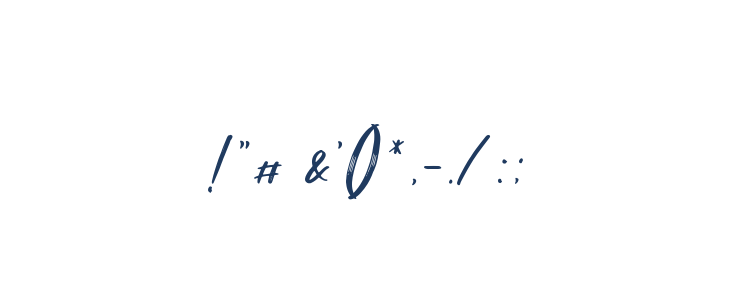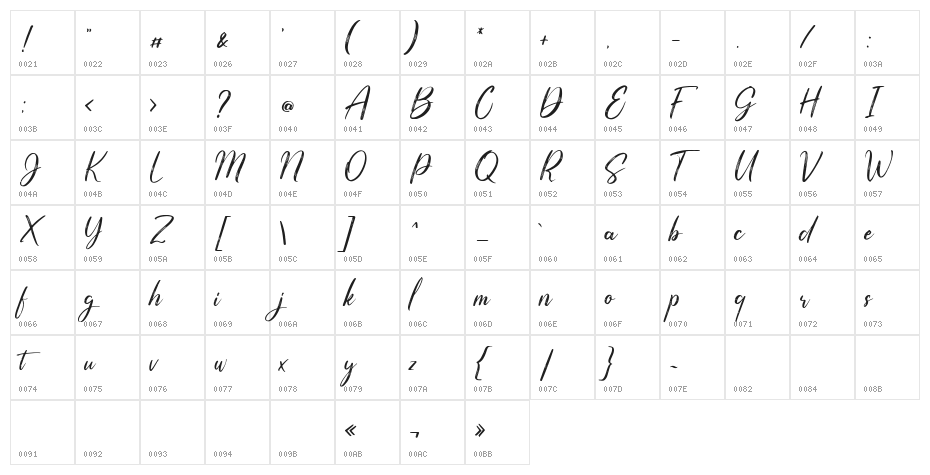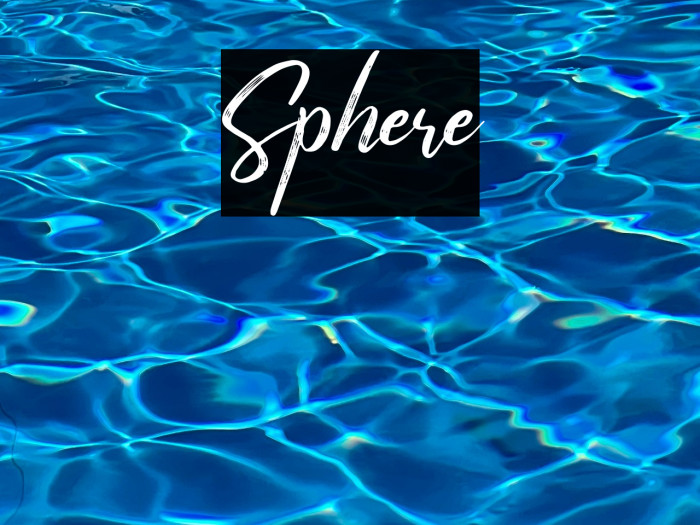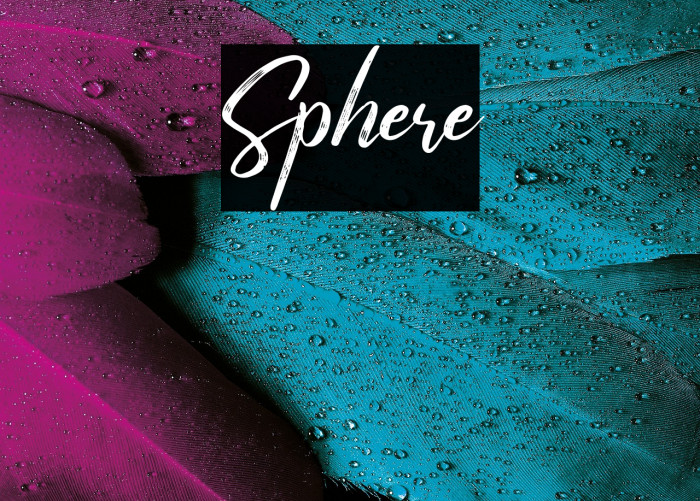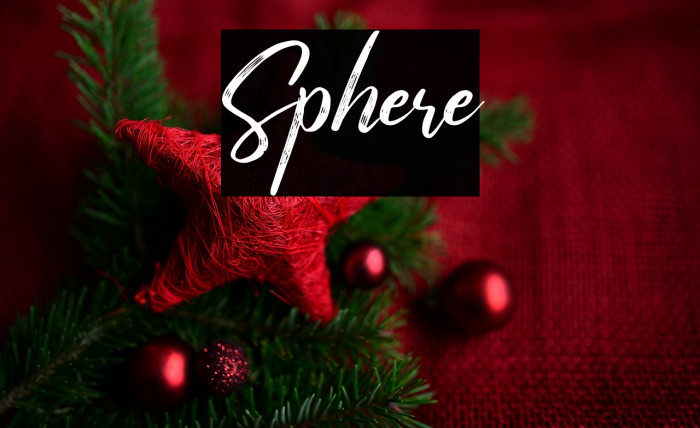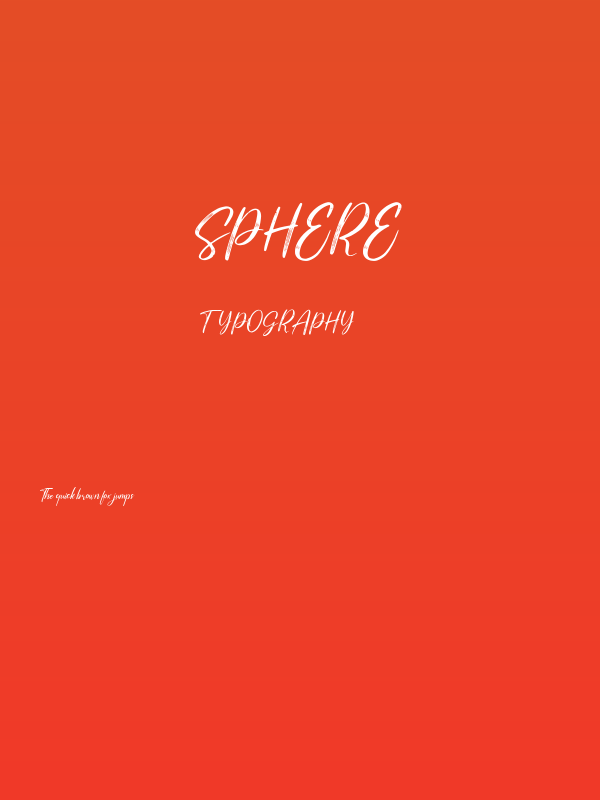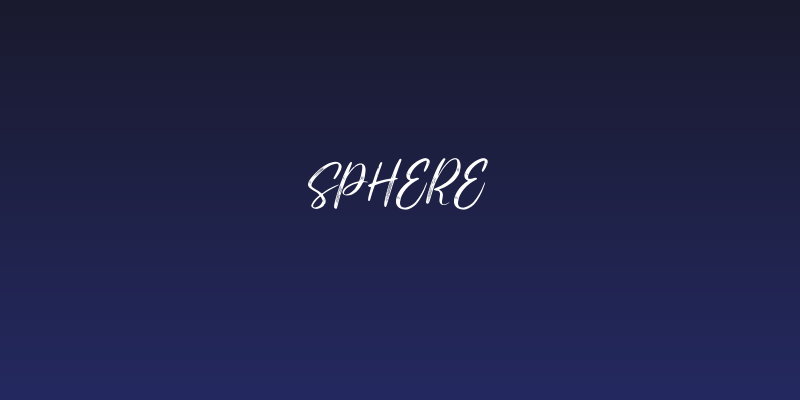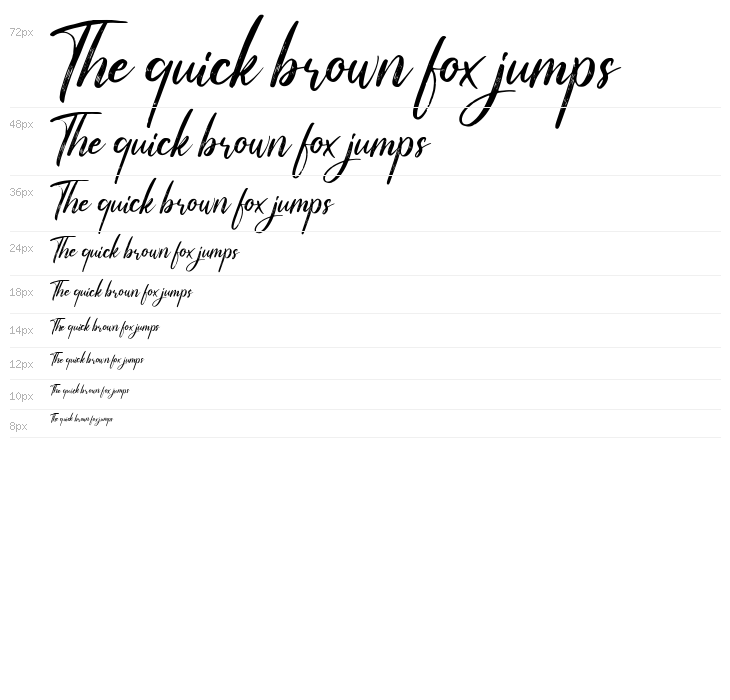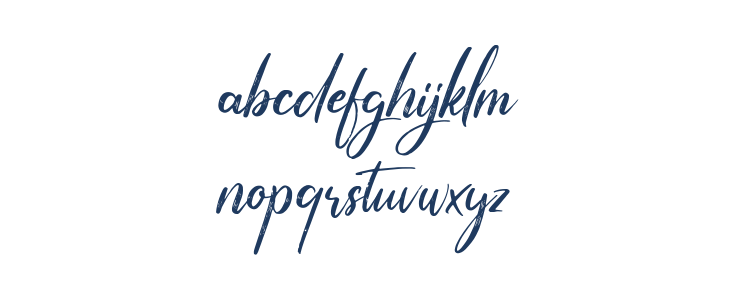
Sphere Font
Sphere Description
This font features a dynamic and expressive script style, characterized by its fluid and cursive letterforms. The strokes are varied, with a noticeable contrast between thick and thin lines, giving it a lively and energetic appearance. The uppercase letters are bold and sweeping, while the lowercase letters maintain a graceful flow, often connecting seamlessly. The font includes a full set of uppercase and lowercase letters, numerals, and a variety of special characters, making it versatile for various design needs. Its handwritten quality adds a personal touch, suitable for creative and artistic projects.